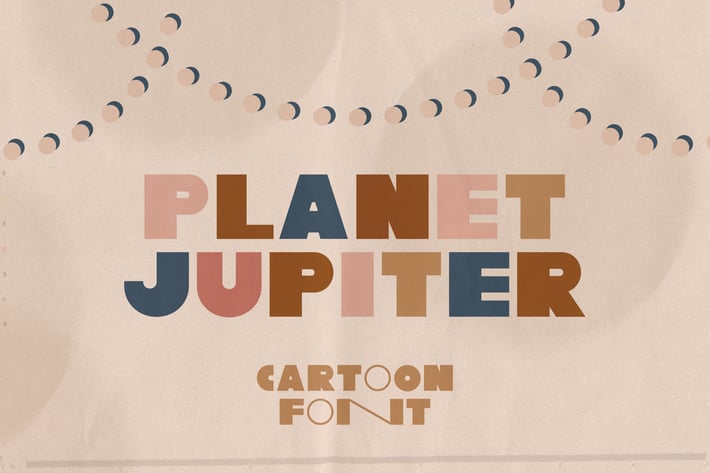
Planet Jupiter Typeface
mankoff
Planet Jupiter Typeface is a new bold font, which includes alternative characters. The font looks great on various packages, goods with food, posters, cartoon posters, magazines. You can also use it to create logos, shortcuts and other design elements.